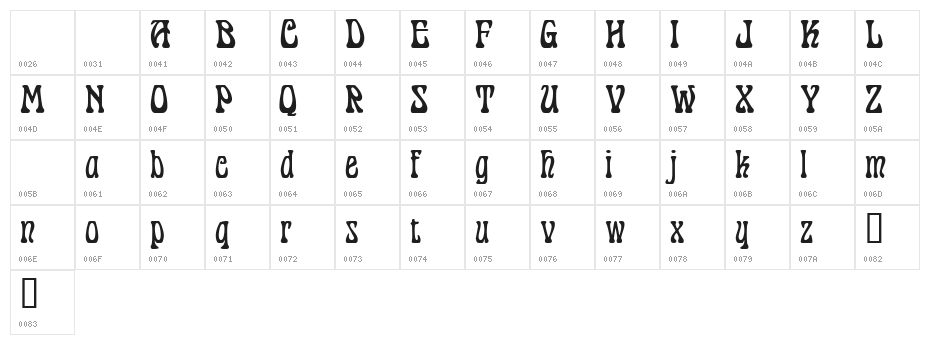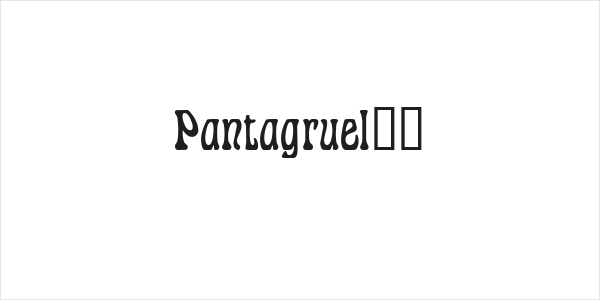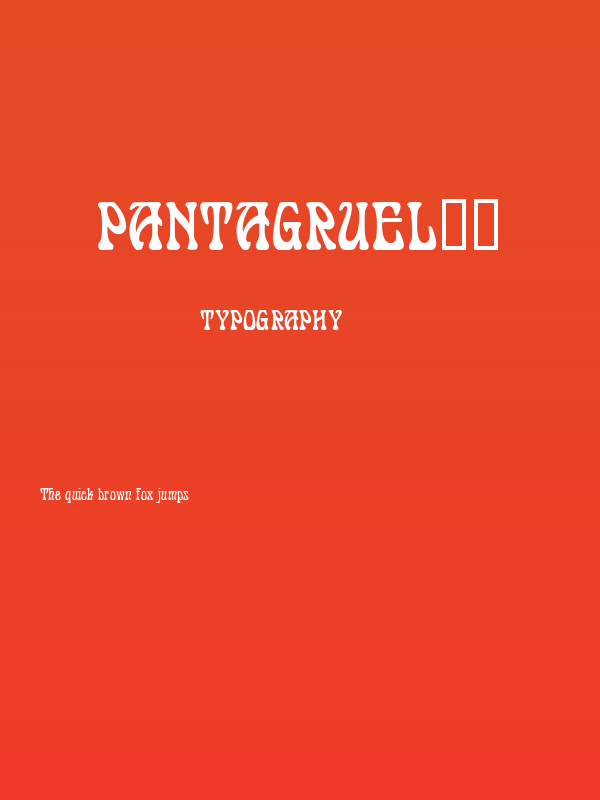
Pantagruel!" Font
Pantagruel!" Description
This font features a bold and expressive style with a distinct, playful character. The letters are characterized by their thick, rounded forms and slightly exaggerated serifs, giving it a whimsical and lively appearance. The uppercase letters have a strong presence, while the lowercase letters maintain a consistent flow with unique curves and angles. The numbers and special characters follow the same bold and dynamic design, ensuring a cohesive look across all elements. This font's unique style makes it stand out, perfect for creative and eye-catching designs.
Overall StylePlayful, Whimsical
Use CaseHeadlines, Posters, Branding
Proposed ProjectsIdeal for children's books, playful branding, posters, and creative headlines.